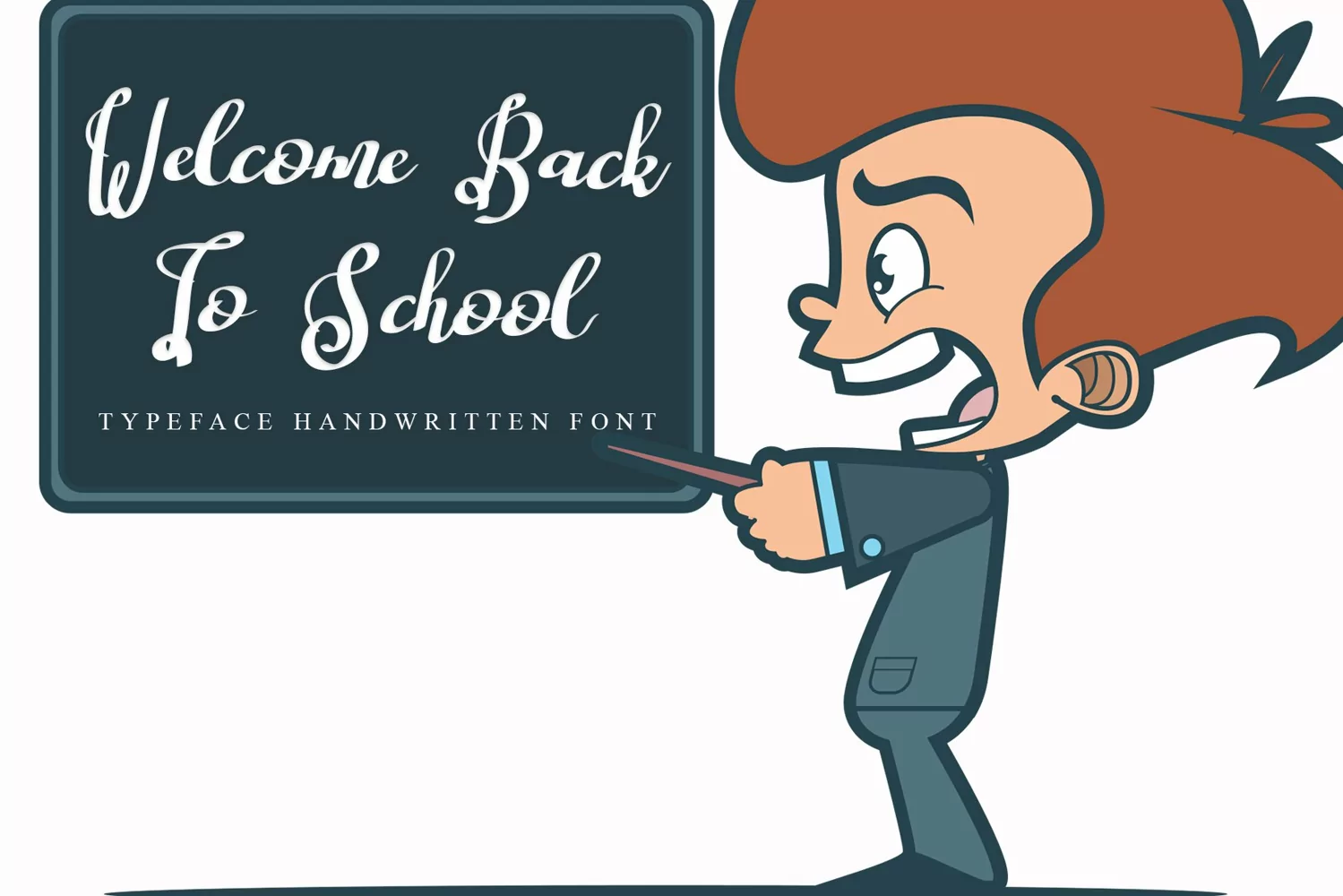
Special Chicken
Introducing, this is our newest product, we call this product Special Chicken,
It looks amazing with sweet touches and beautiful curves in each letter. Special Chicken fonts are perfect for: wedding invitations, fashion magazines, logos, signatures, photography, watermarks, wall displays, social media,